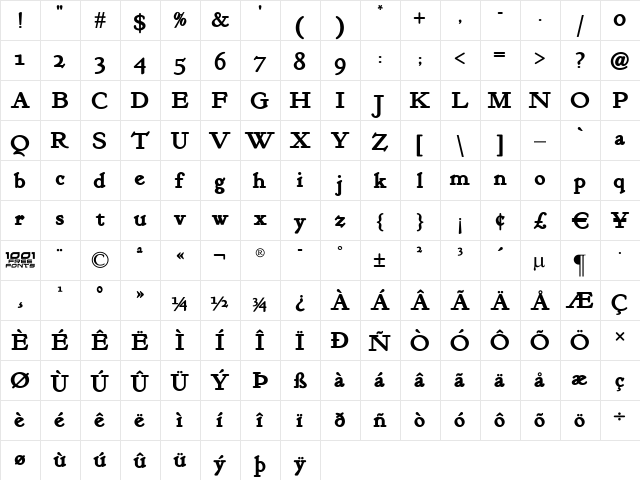
Kelmscott Roman NF Bold Bold
Design Context for Kelmscott Roman NF Bold Typeface
Kelmscott Roman NF Bold is a composed and adaptable typeface that performs quietly and consistently across a wide range of design contexts. Its bold stroke weight gives it real presence on the page.